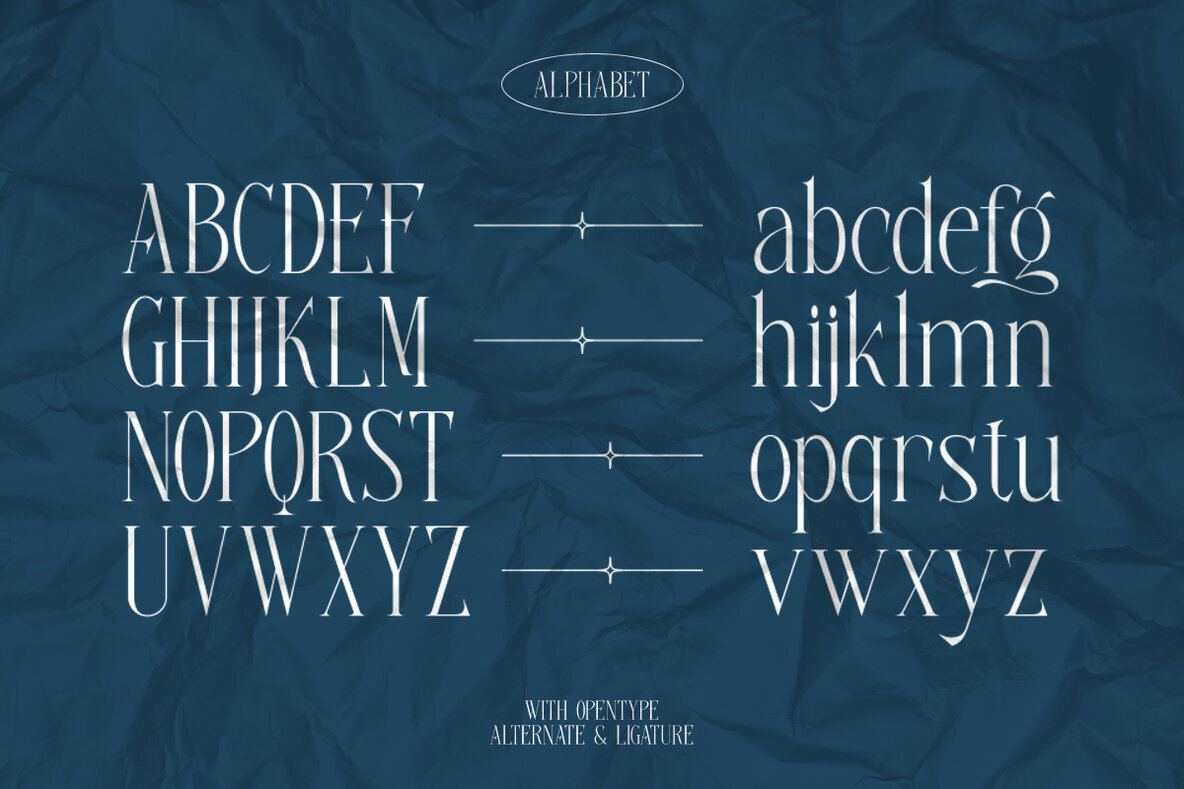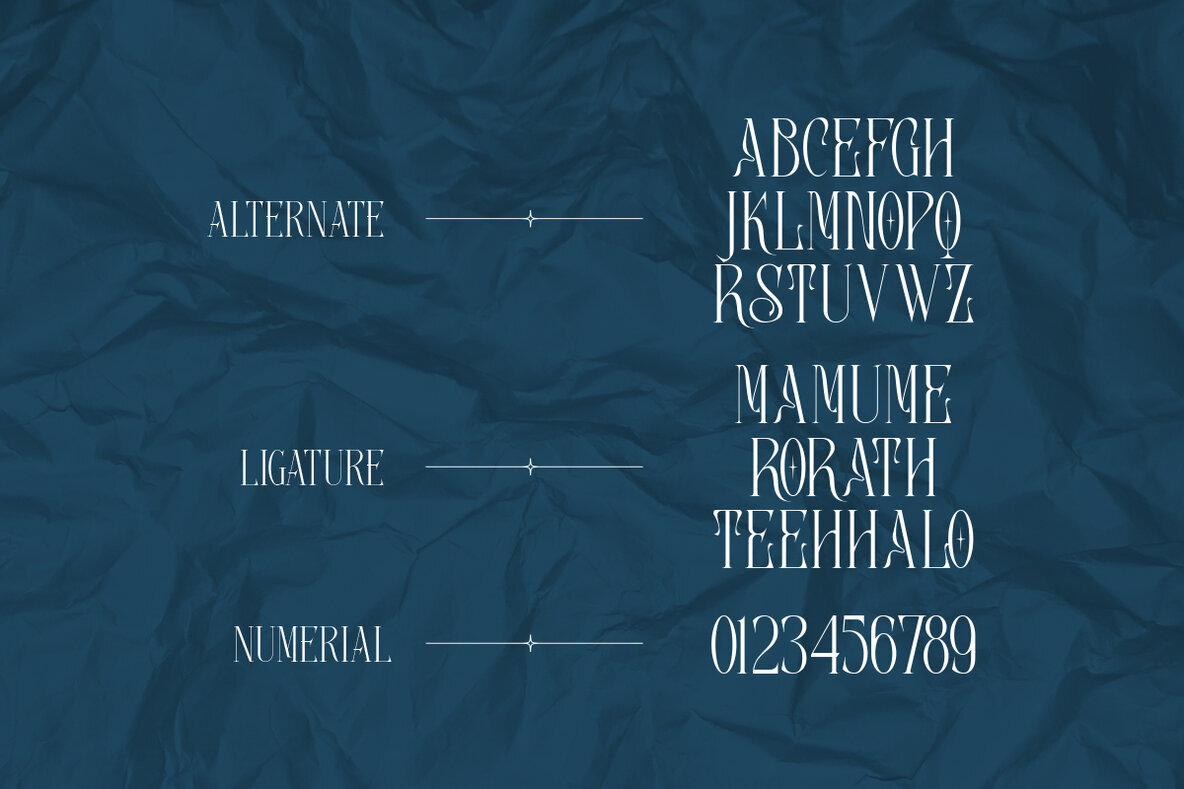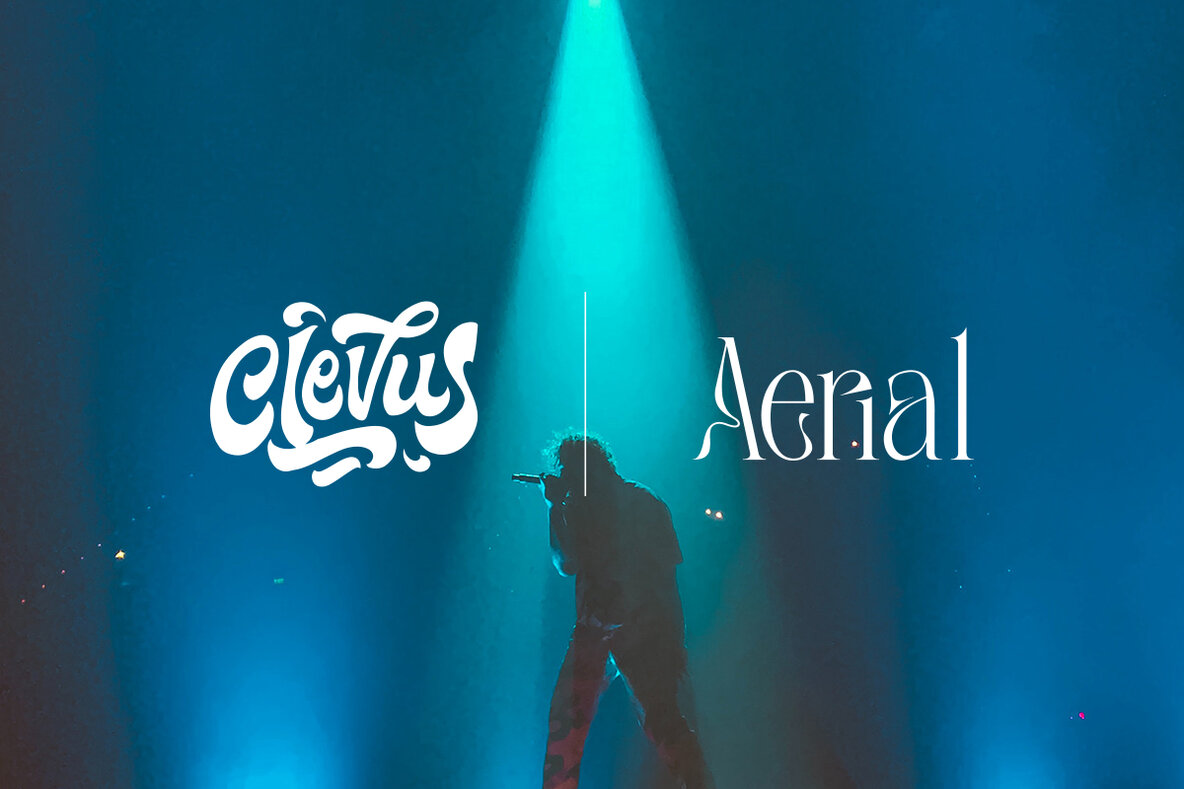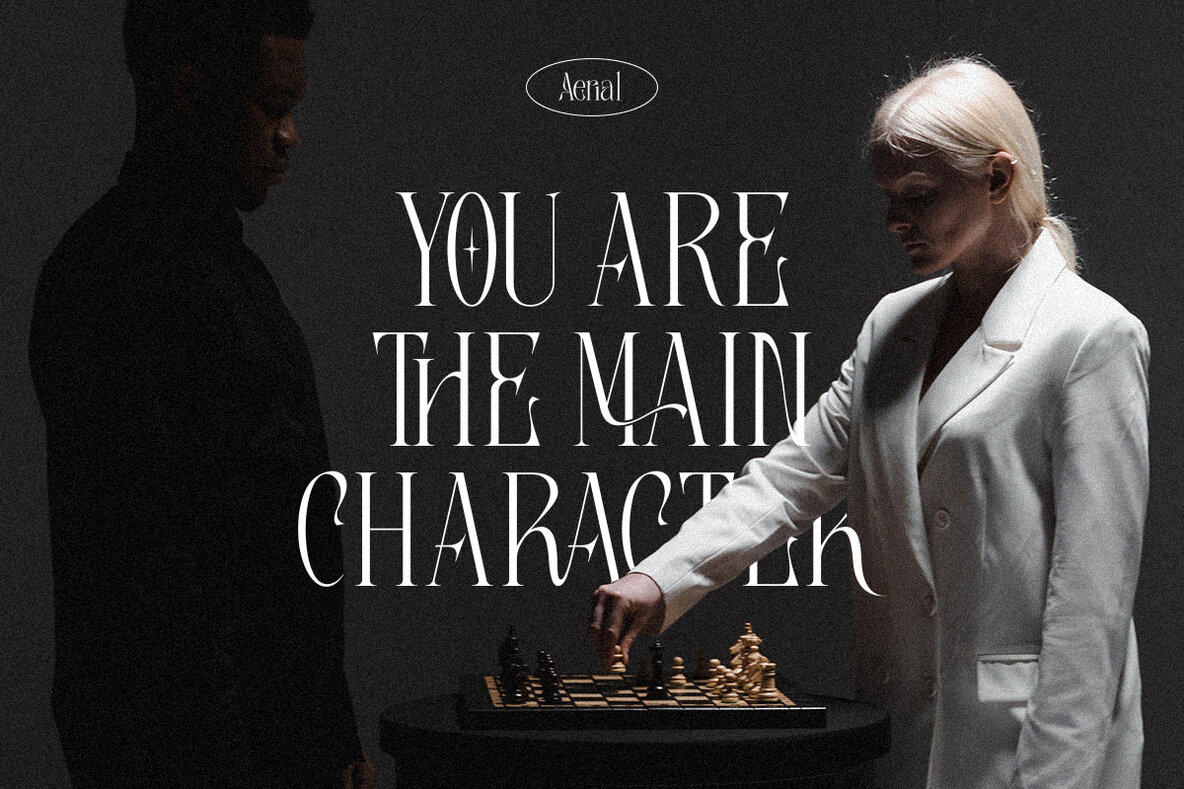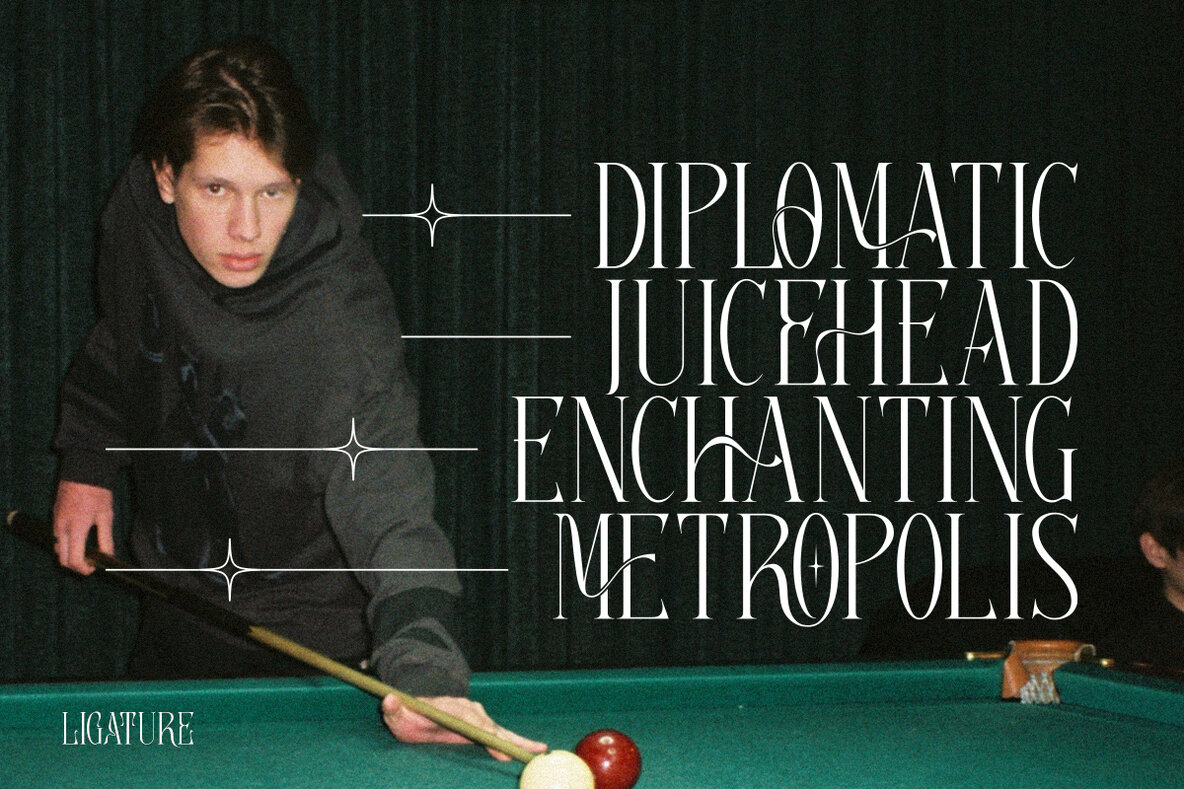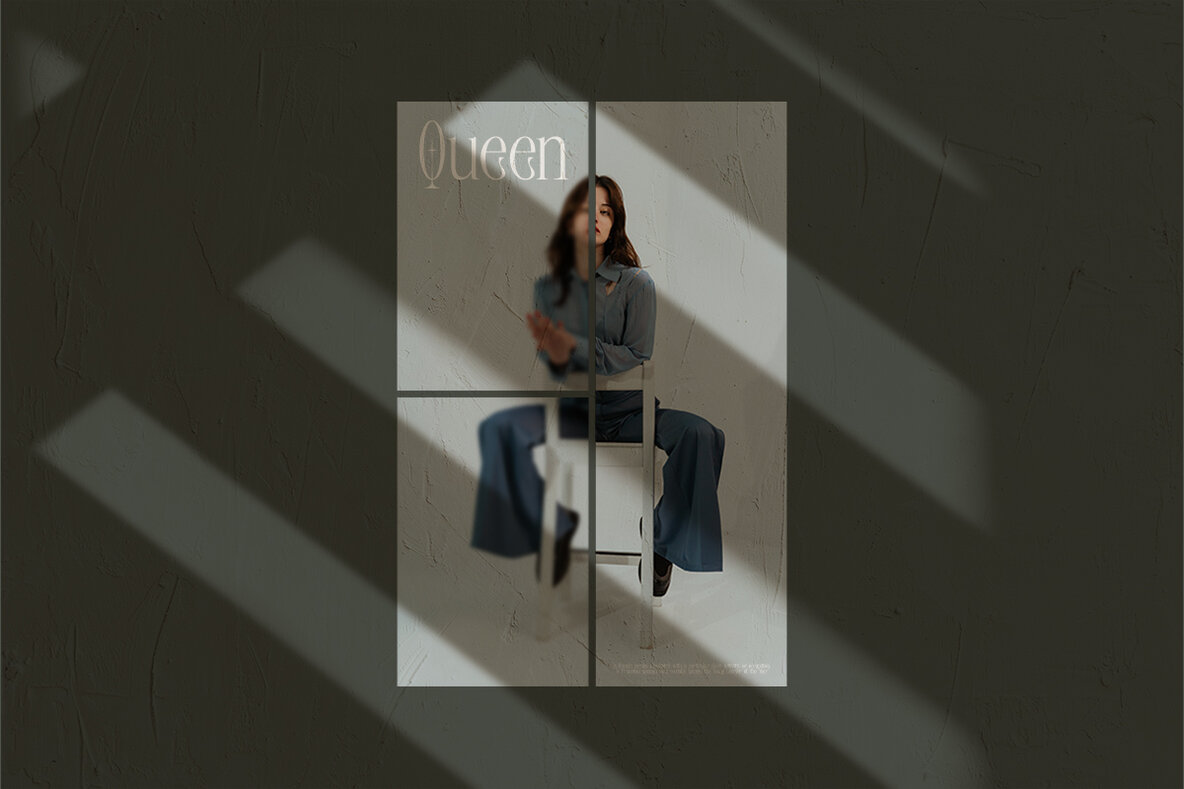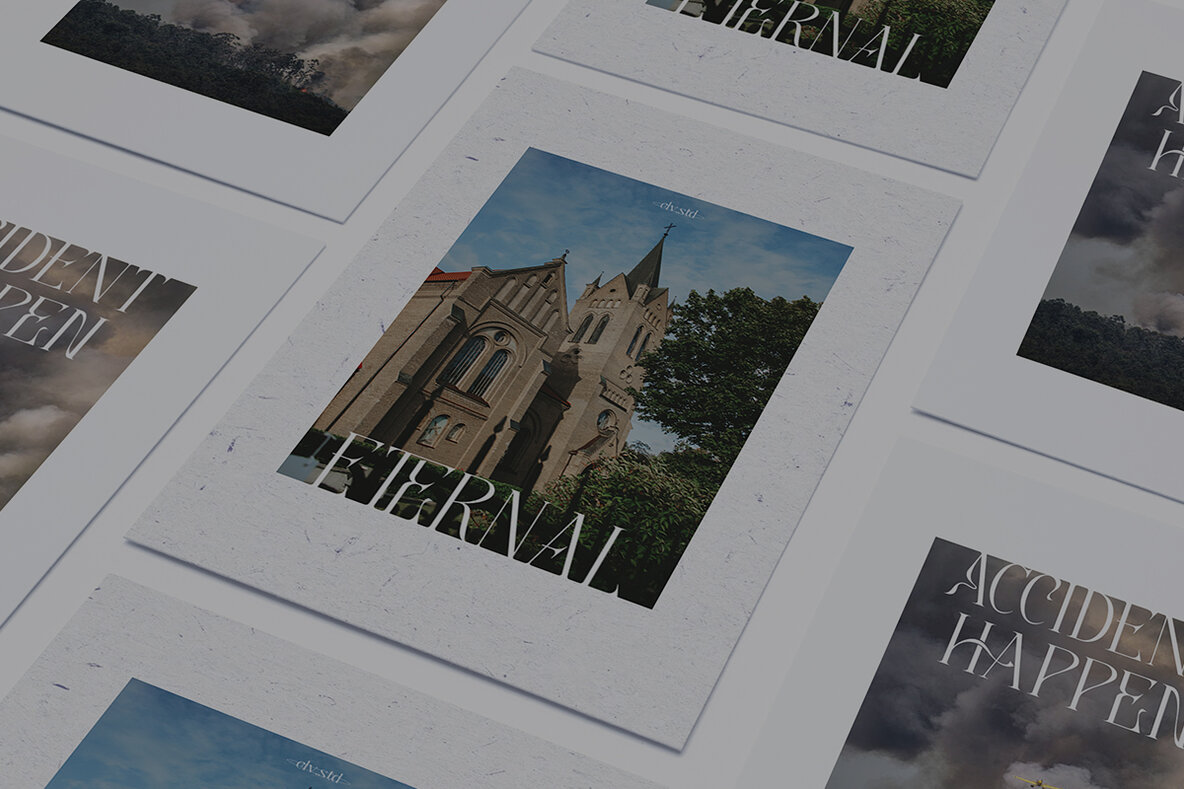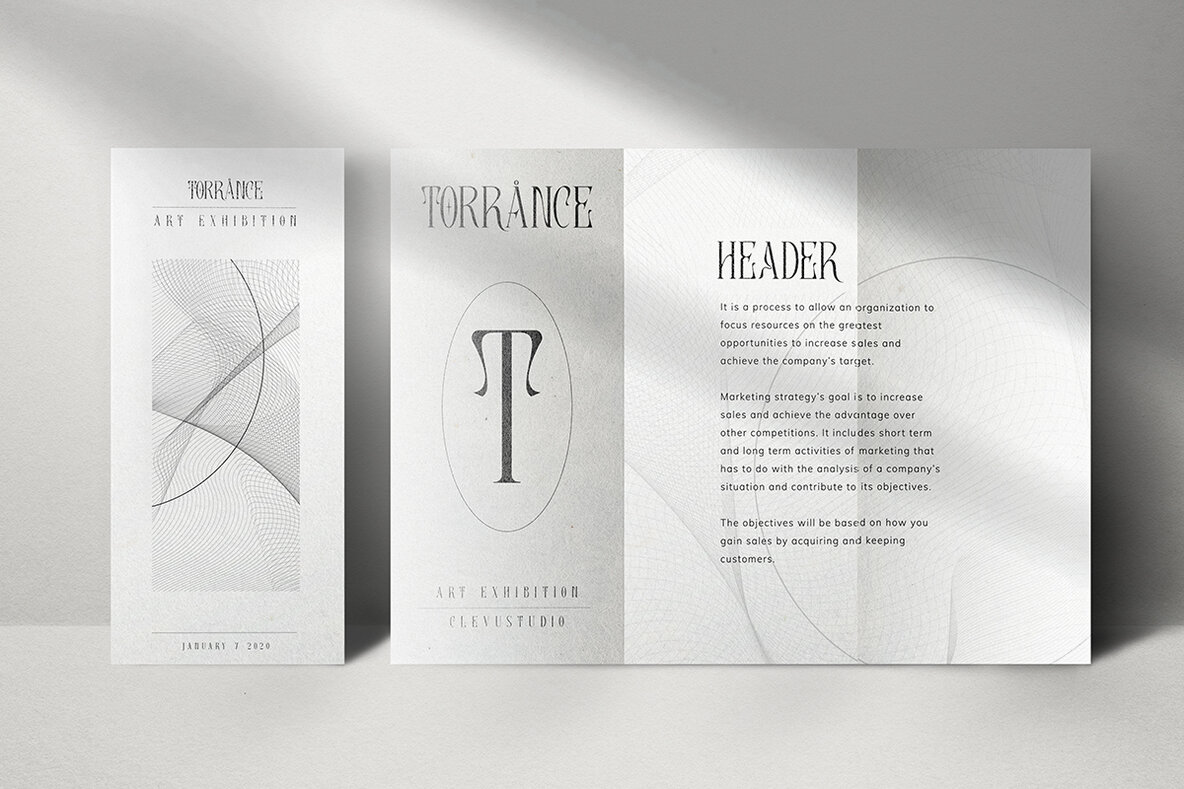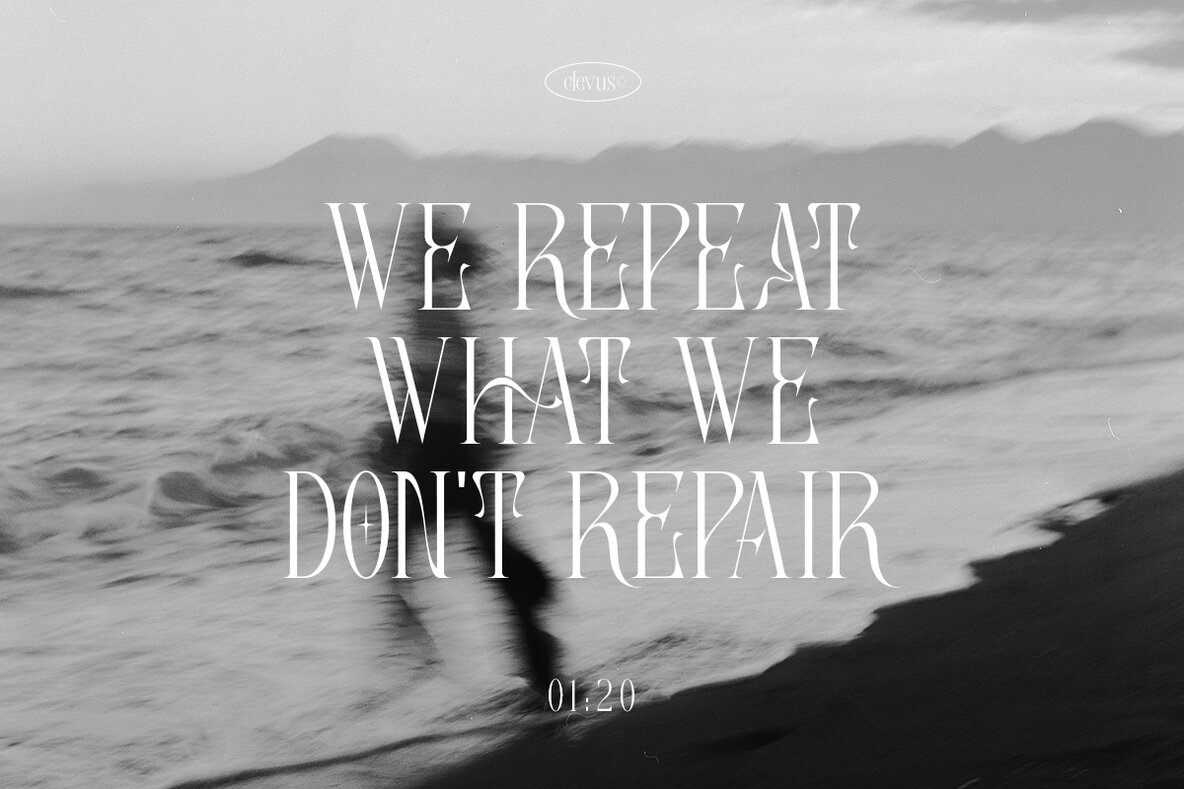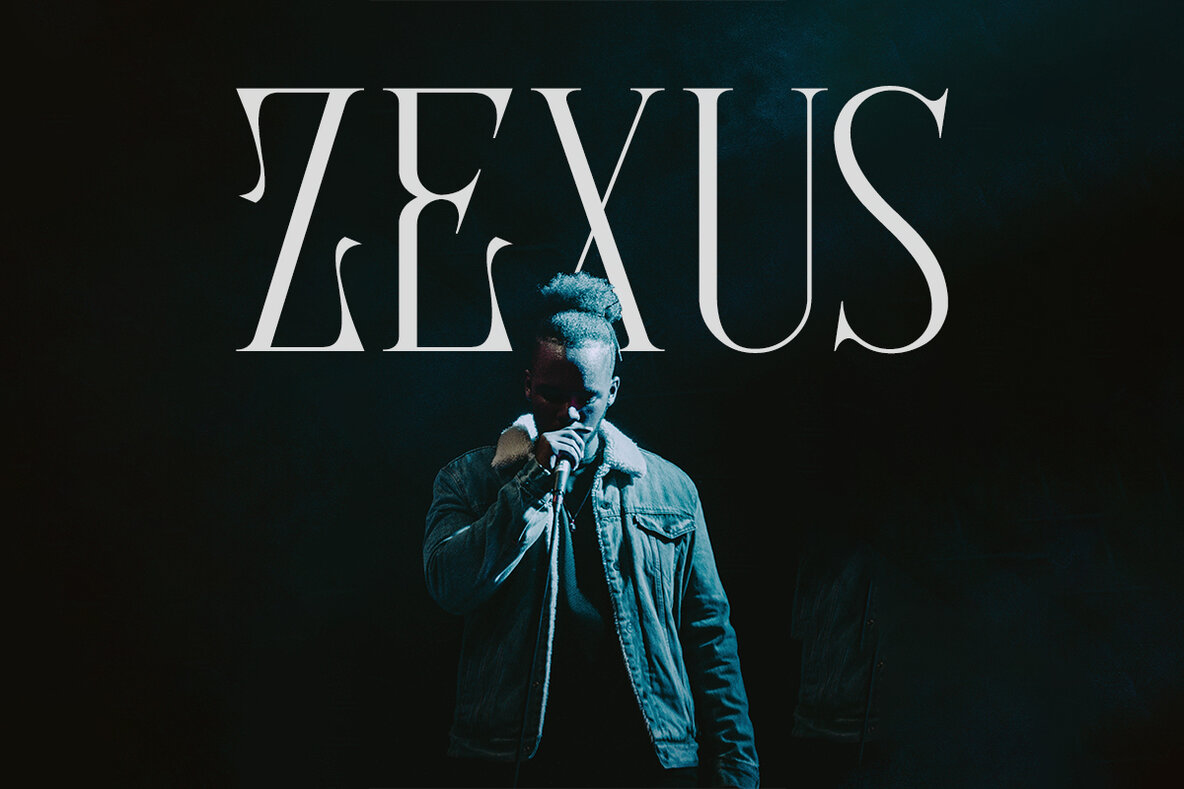
Aerial Font
Aerial Regular
Get ready to be impressed - Aerial is an elegant and versatile serif font! Crafted with love, it features unique alternates and ligatures that make it perfect for luxury logos, book covers, movie titles, fashion brands, magazines, clothing labels and more. With its unique design features, Aerial adds an extra touch of charm and sophistication to projects of all kinds. Get yours today at YouWorkForThem!